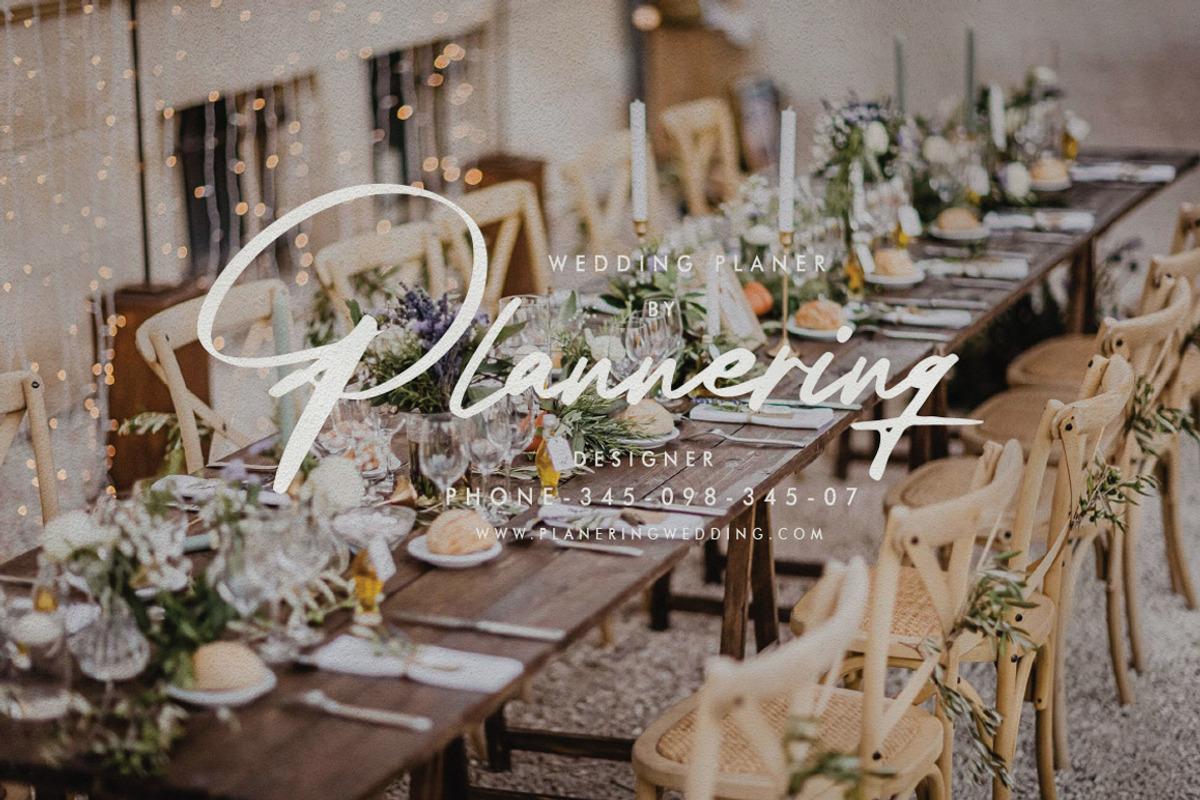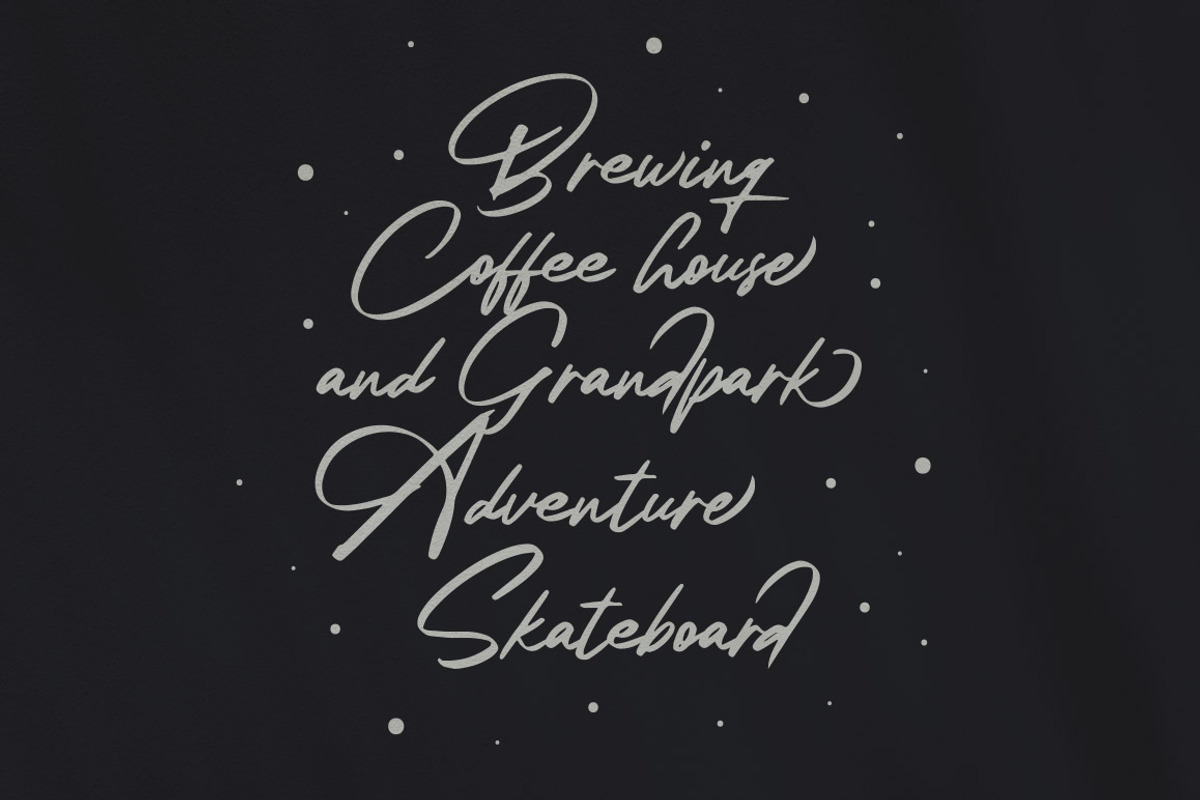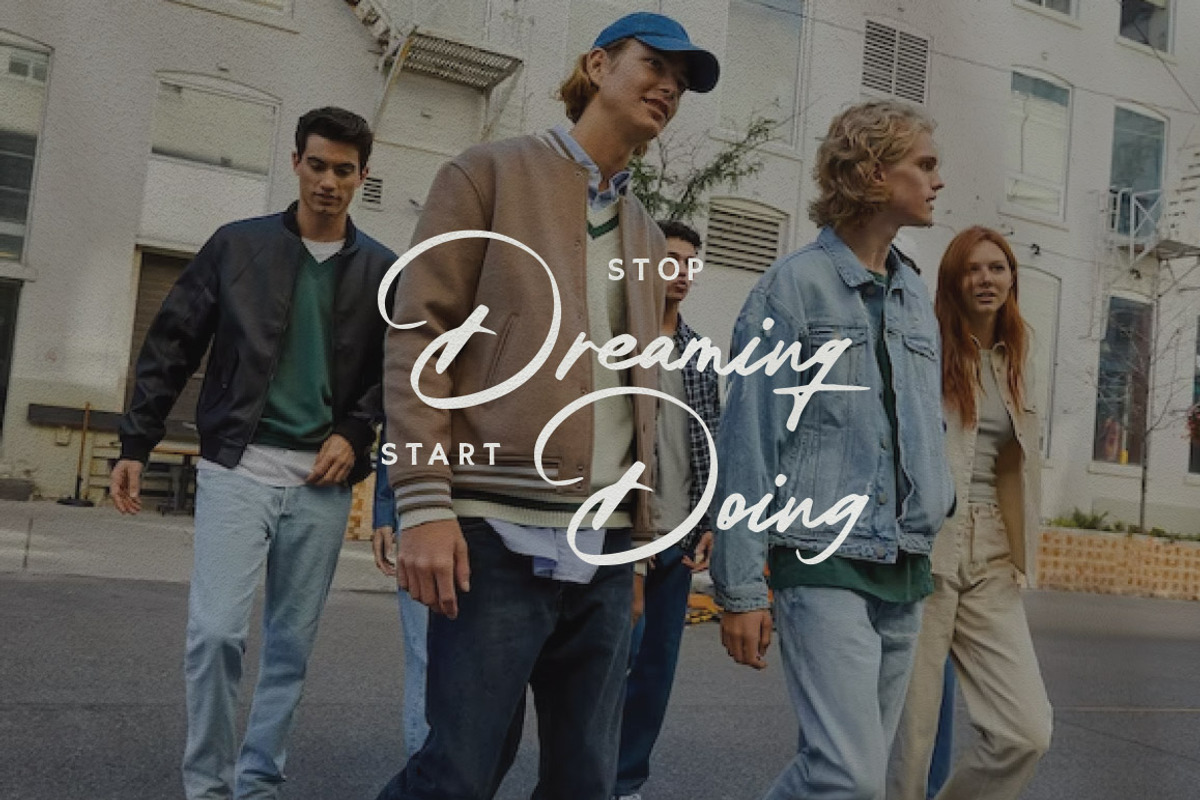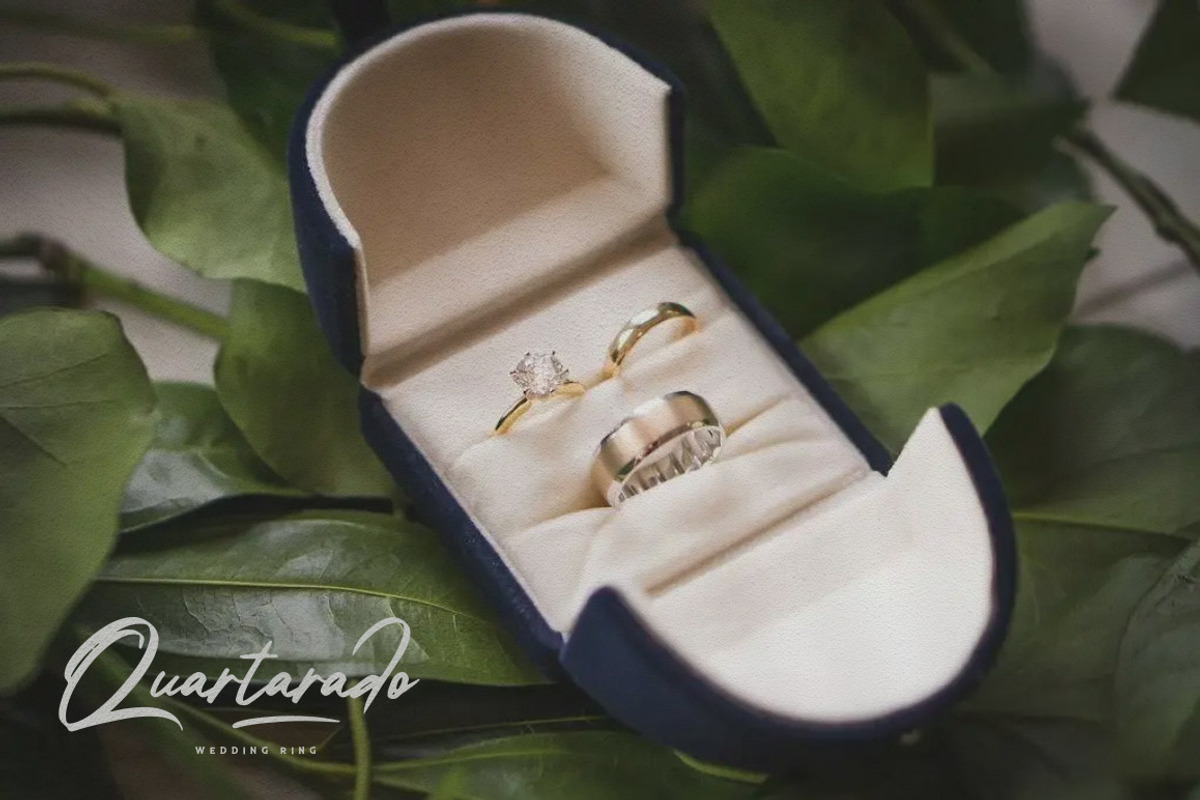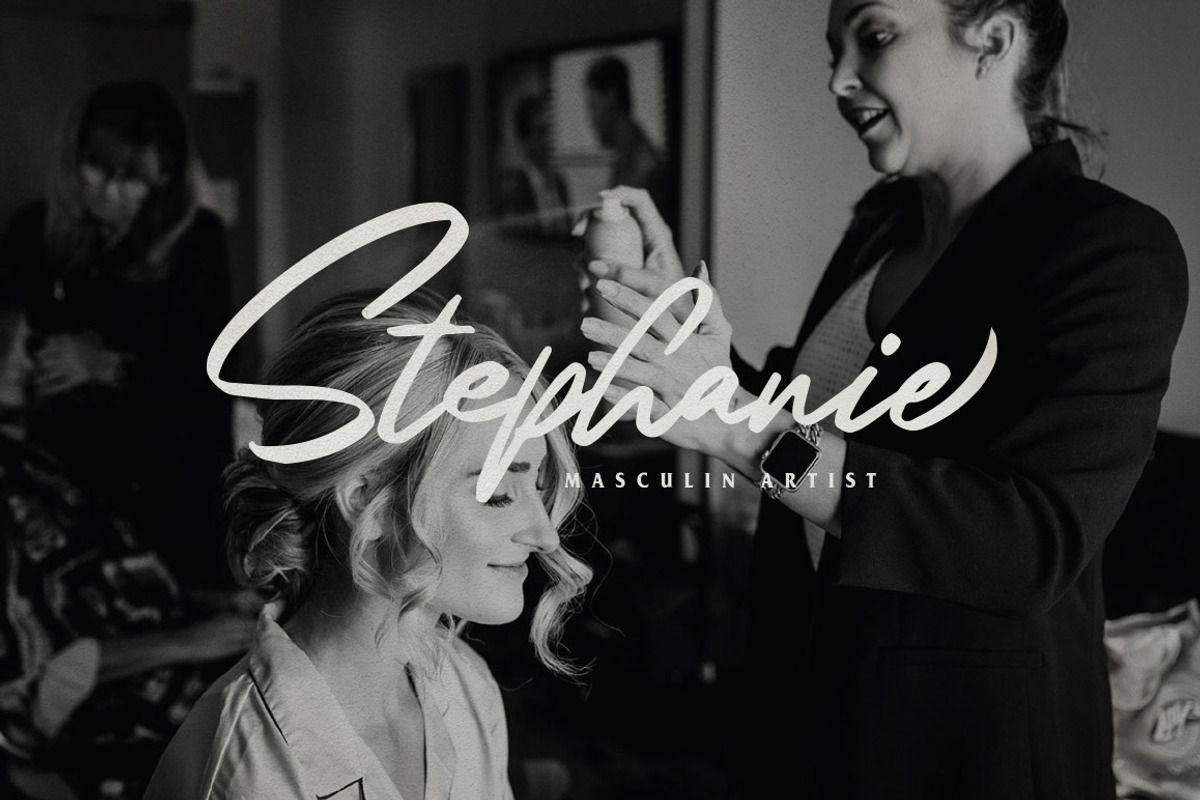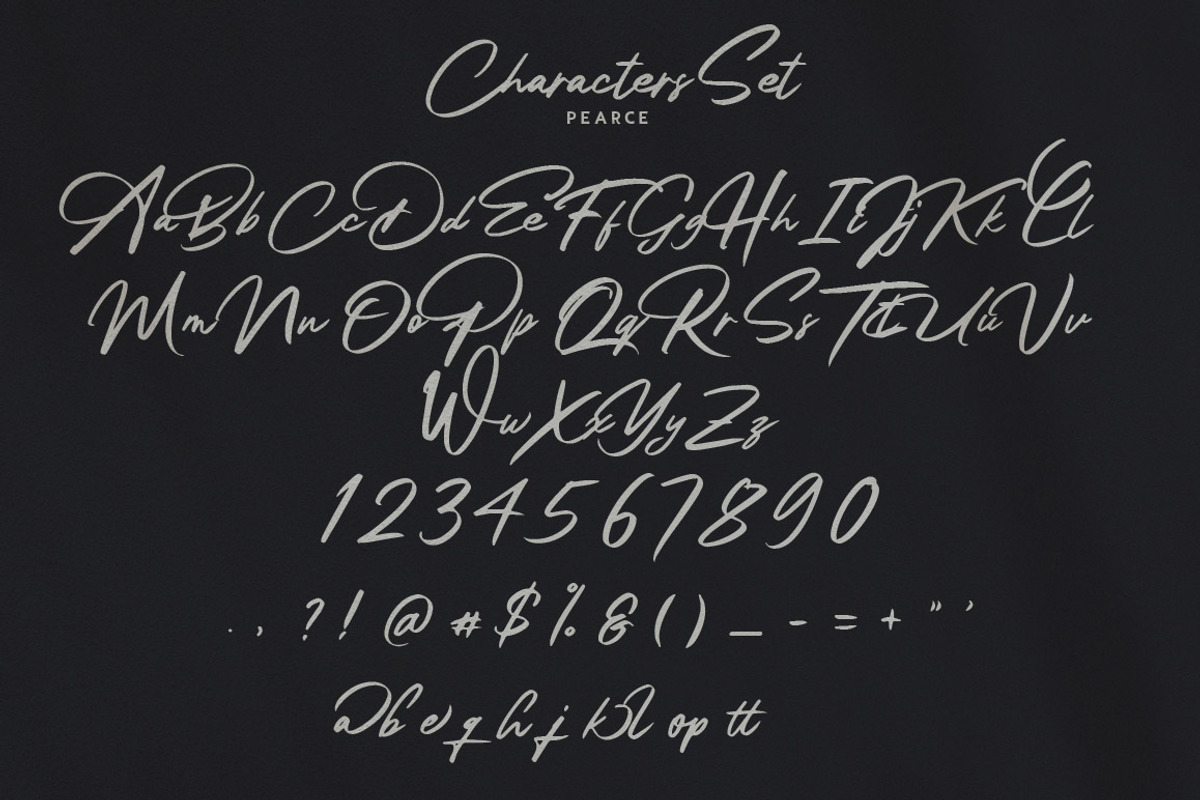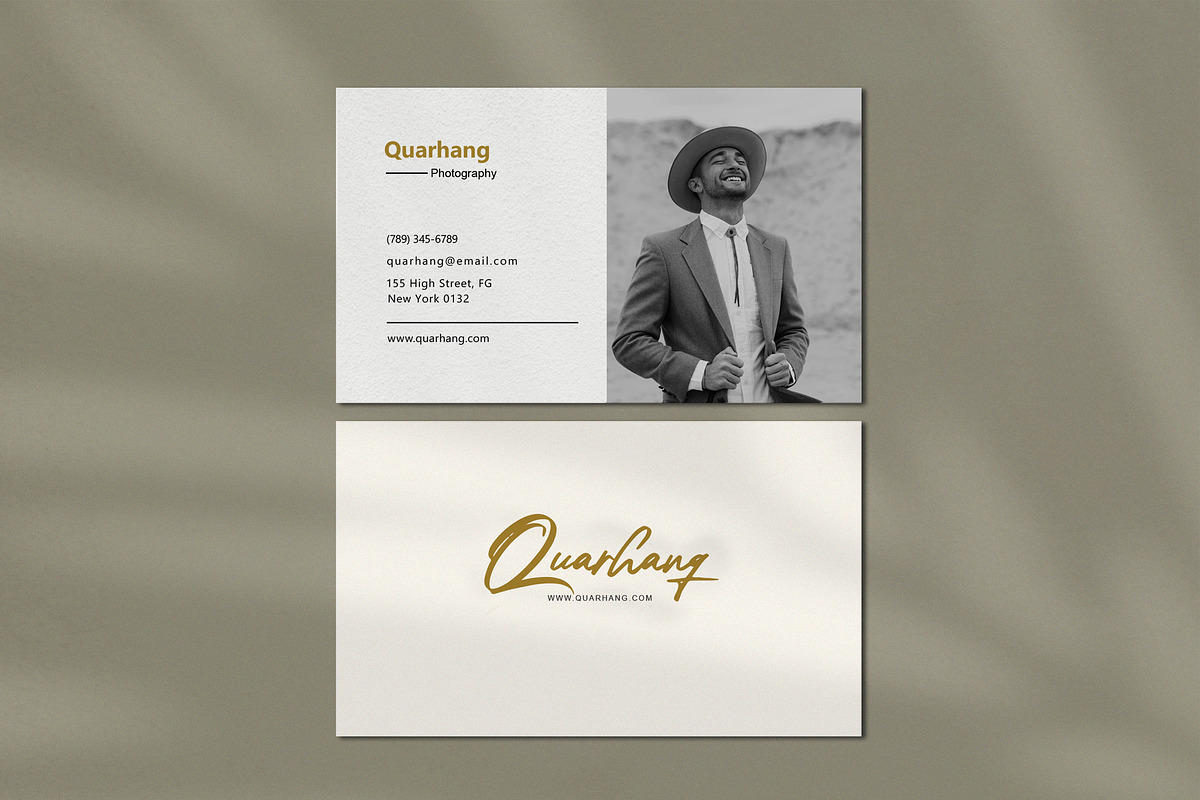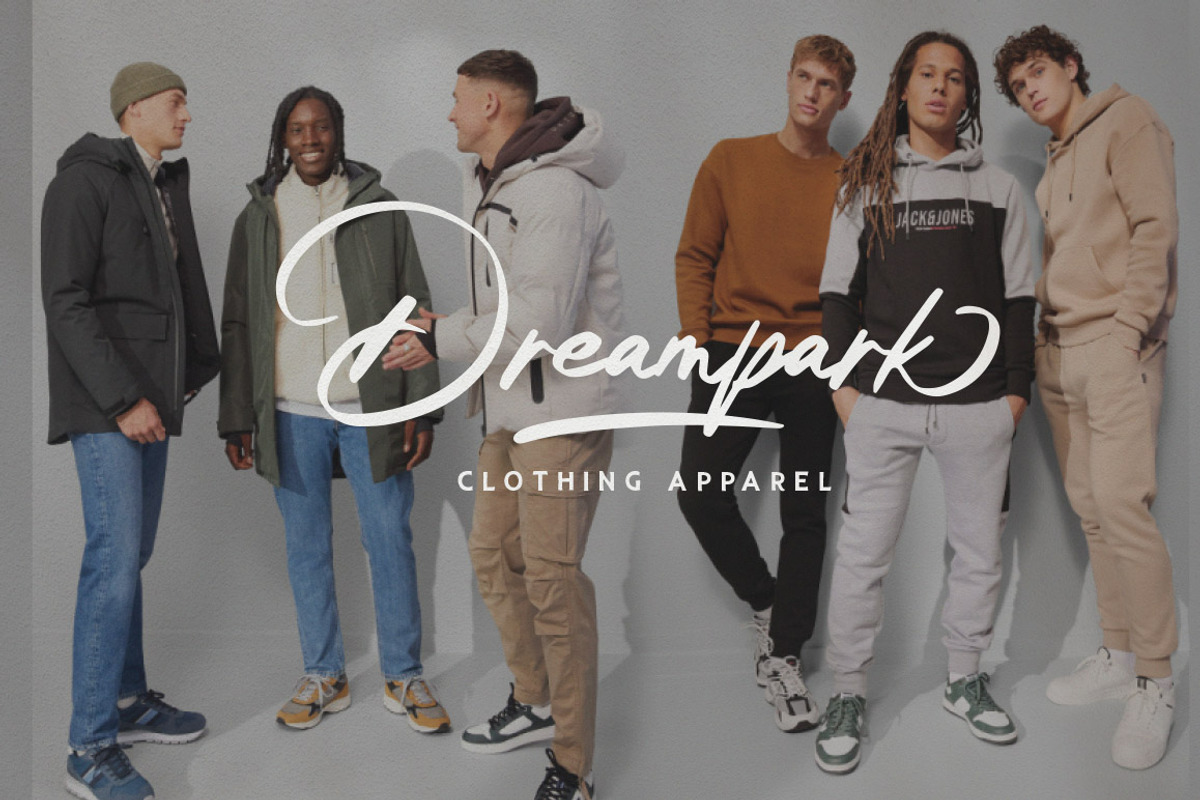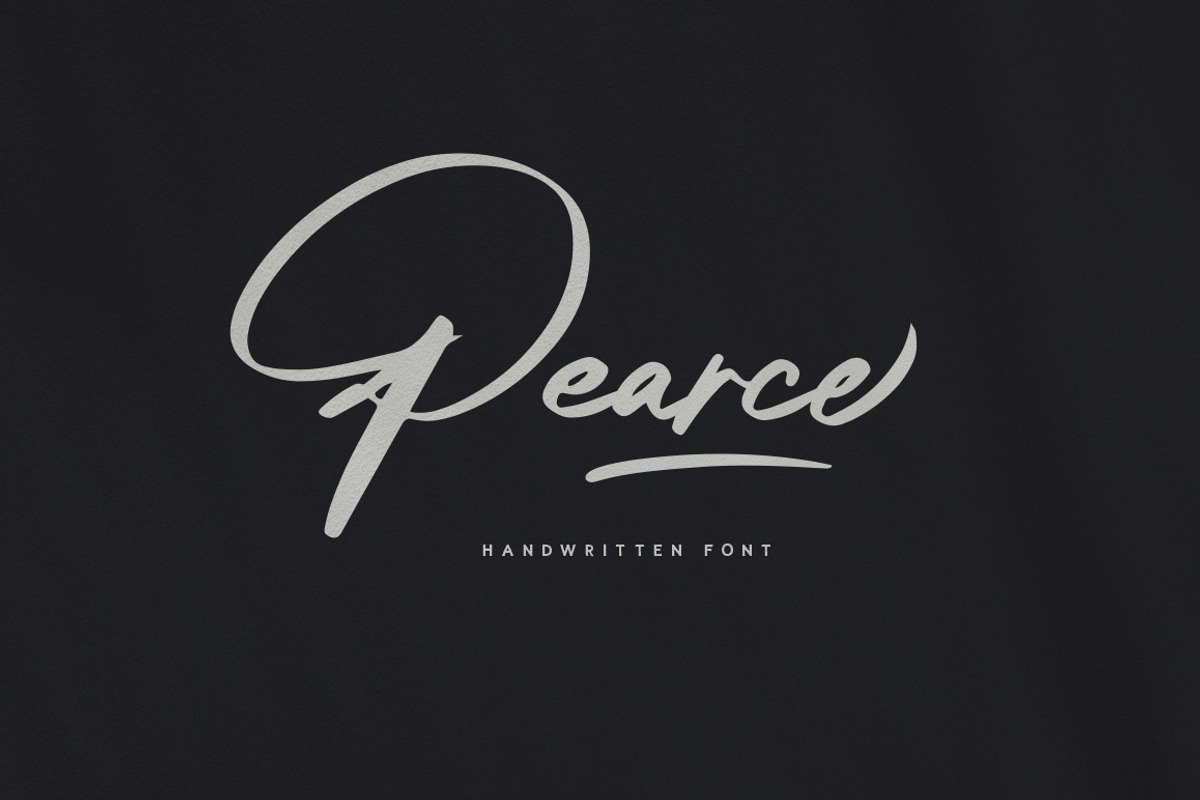
PEARCE - Handwritten Font
Pearce is handwritten typeface, bold, clean and rough. With a professional touch makes this font more elegant and suitable for all types of projects you are working on. There are so many variations on each character. Include Opentype stylistic alternates. You are able to create so many different typographical layouts easily and quickly. Make sure you use OpenType program and simply open Glyph Palette to access all of the glyphs. all the letters give a natural handwriting feel, this font is modern, simple, elegant but still original.
This font is perfect for branding, signatures, wedding invitations, logos, promotions, product packaging, social media design, advertising, photography, watermarks and other needs.